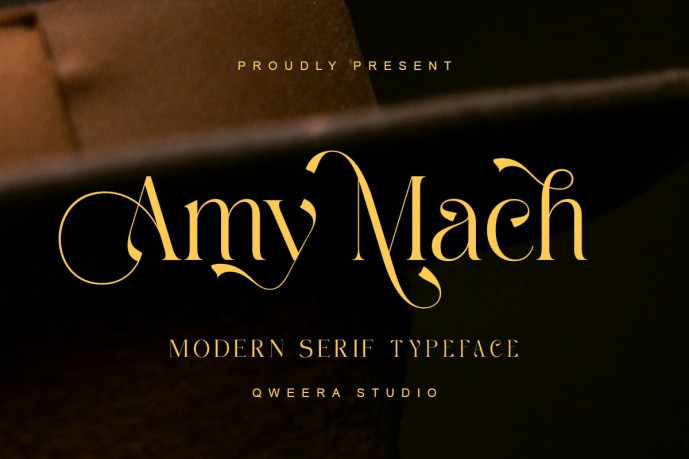
Amy March – Modern Elegant Serif Font
Amy March is a modern serif font crafted for florist branding, coffee house logos, boutique identity, artisan packaging, and elegant editorial design. With its graceful serif structure, warm curves, and expressive swash details, Amy March brings a refined yet inviting personality to modern visual projects.
Its polished display character works beautifully for floral shops, cafe branding, coffee packaging, boutique logos, product labels, wedding stationery, lifestyle editorials, social media visuals, and premium brand presentations. Amy March includes uppercase and lowercase characters, stylish alternates, ligatures, multilingual support, professional kerning, Regular and Italic styles, plus OTF, TTF formats for polished print and digital use.
Bring warm elegance, blooming serif charm, and refined boutique personality into your next branding, packaging, or editorial project with Amy March.
Modern elegant serif style
Complete uppercase and lowercase characters
Stylish alternates and ligatures
Multilingual character support
Professional kerning for polished typography
Regular and Italic font styles
Warm decorative look for florist, cafe, boutique, and lifestyle branding